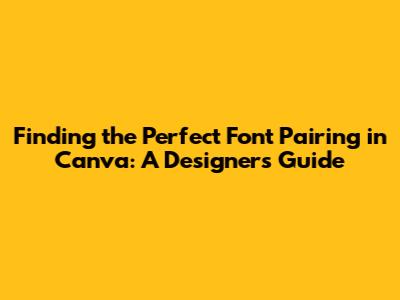
Canva Font Pairing: Best Font Combinations For Design
Hey guys! Choosing the right fonts is super important when you're designing anything, whether it's a sleek presentation, a cool social media graphic, or a professional-looking document. The fonts you pick can totally change how your message is perceived. If you're using Canva, you've got a ton of options, which can be both awesome and a little overwhelming. But don't worry, we're going to break down how to find fonts that go well together in Canva, making your designs pop! Think of fonts as the voice of your design; they convey personality, tone, and style. Pairing fonts effectively means creating a visual harmony that enhances your message, rather than distracting from it. This guide will walk you through the principles of font pairing, explore some fantastic Canva font combinations, and give you practical tips for choosing the best fonts for your projects. Whether you’re a seasoned designer or just starting out, understanding font pairing is a game-changer for creating visually appealing and impactful designs. The key is to find fonts that complement each other, creating a visual hierarchy and enhancing readability. So, let's jump into the world of typography and discover how to make your Canva designs shine!
Why Font Pairing Matters
Font pairing is more than just picking two fonts that look okay together; it's about crafting a visual experience that's both pleasing and effective. Font pairing plays a crucial role in how your audience perceives your design. When fonts work together, they create a sense of balance and harmony, making your design look polished and professional. But why is this so important? First impressions matter, guys! Your choice of fonts is one of the first things people notice, and it sets the tone for everything else. Imagine a sleek, modern presentation with a playful, childish font – it just wouldn’t work, right? The right font pairing enhances readability, ensuring your message is clear and easy to digest. A well-chosen font combination guides the reader's eye, creating a visual hierarchy that highlights important information. This is crucial for presentations, websites, and any design where you want to convey information efficiently. Think about it: have you ever struggled to read a website because the fonts were too similar or clashed horribly? Good font pairing avoids this problem. Using font pairings effectively can really elevate your designs from looking amateur to professional. It shows you've paid attention to the details and understand the nuances of visual communication. This is especially important for branding, where consistency and visual appeal are key to building trust and recognition. Imagine a logo with mismatched fonts – it would look sloppy and unprofessional. Now, consider a logo with carefully paired fonts that reflect the brand's personality – it exudes professionalism and attention to detail. In the grand scheme of design, mastering font pairing can significantly impact the success of your visual projects. It's about creating a cohesive visual experience that supports your message, enhances readability, and leaves a lasting impression. It's an art and a science, but with a little guidance, anyone can learn to do it well. So, let's explore some principles and tips to help you become a font pairing pro in Canva!
Understanding Font Personalities
Every font has its own unique personality, and understanding these personalities is the first step in successful font pairing. Think of fonts as characters in a play – each has a distinct role and contributes to the overall story. Some fonts are bold and assertive, while others are subtle and elegant. Recognizing these characteristics helps you choose fonts that complement each other, creating a cohesive visual narrative. Let's break down some common font categories and their personalities. Serif fonts, like Times New Roman or Georgia, are traditional and formal. They have small decorative strokes called serifs at the end of the letters. Serif fonts often convey a sense of authority, reliability, and sophistication. They're great for formal documents, books, and websites that aim to project a sense of trustworthiness. Imagine a law firm using a classic serif font in their branding – it conveys stability and professionalism. On the other hand, sans-serif fonts, such as Arial or Helvetica, are modern and clean. They lack the serifs, giving them a more minimalist and contemporary feel. Sans-serif fonts are often used in digital designs, logos, and headings because they're easy to read on screens. Think of tech companies often opting for sans-serif fonts to project innovation and simplicity. Script fonts, like Brush Script or Pacifico, mimic handwriting and add a touch of elegance and personality. They're often used for invitations, quotes, and designs that need a personal touch. However, it’s important to use script fonts sparingly, as they can be difficult to read in large blocks of text. Display fonts are designed to grab attention. They come in a variety of styles, from bold and geometric to quirky and playful. These fonts are best used for headlines, logos, and other prominent design elements. Think of the bold, stylized fonts used in movie posters or magazine covers – they’re designed to make a statement. The key to font pairing is to combine fonts with contrasting personalities that still complement each other. For instance, pairing a classic serif font with a clean sans-serif font creates a balance between tradition and modernity. By understanding these font personalities, you can start to make informed decisions about which fonts will work well together in your designs. It's like matchmaking – finding the right personalities that create a harmonious relationship!
Principles of Font Pairing
Now that we understand font personalities, let's dive into the core principles of font pairing. These principles will guide you in selecting fonts that not only look good together but also enhance the overall message of your design. Think of these principles as the rules of the game – understanding them will help you play (or design) like a pro. The first key principle is contrast. Contrast is your best friend in font pairing. Combining fonts that are too similar can make your design look bland and uninspired. You want to choose fonts that have distinct differences in weight, style, or structure. For instance, pair a bold, attention-grabbing font with a lighter, more subdued font. Or combine a serif font with a sans-serif font. This contrast creates visual interest and hierarchy, guiding the reader’s eye. Hierarchy is another crucial element. You want to establish a clear visual hierarchy in your design, indicating which elements are most important. This can be achieved by using different font sizes, weights, and styles. Typically, you'll use a bolder or larger font for headings and a simpler, more readable font for body text. This helps the reader quickly scan the design and understand the key information. For example, a bold sans-serif font for headlines paired with a classic serif font for body text creates a clear and readable hierarchy. Readability is paramount. No matter how beautiful a font is, if it's difficult to read, it's not the right choice. Your primary goal is to communicate your message effectively, so prioritize fonts that are clear and legible, especially for body text. Avoid using overly decorative or script fonts in large blocks of text, as they can strain the reader's eyes. Stick to fonts that are easy to read at various sizes and on different devices. Consistency is key to professional design. While contrast is important, you also want to maintain a level of consistency in your font choices. Typically, it's best to stick to two or three fonts per design. Overusing fonts can make your design look cluttered and confusing. Choose a primary font for headings and a secondary font for body text, and then use them consistently throughout your design. This creates a cohesive and polished look. By applying these principles – contrast, hierarchy, readability, and consistency – you can create font pairings that are not only visually appealing but also effective in conveying your message. It’s like composing music – you want to create a harmonious blend of different notes and rhythms. So, let's move on to some specific font combinations in Canva that put these principles into action.
Canva Font Combinations That Work Wonders
Canva offers a fantastic array of fonts, making it a playground for designers. But with so many options, it can be tricky to find the perfect pairs. Don't worry, guys! We've curated some Canva font combinations that work wonders, giving you a head start on your next design project. These combinations are tried and true, offering a balance of style, readability, and visual appeal. Let's dive in! First up, we have the classic pairing of Montserrat and Montserrat Light. Montserrat is a clean, modern sans-serif font that works well in a variety of contexts. Pairing it with Montserrat Light adds a subtle contrast, creating a balanced and professional look. Use Montserrat for headings and subheadings and Montserrat Light for body text. This combination is perfect for presentations, websites, and marketing materials. Next, consider Playfair Display and Montserrat. Playfair Display is an elegant serif font with a touch of sophistication, while Montserrat provides a clean, modern contrast. This pairing is great for designs that need a touch of formality, such as invitations, stationery, or editorial layouts. Use Playfair Display for headings and Montserrat for body text to create a refined and readable design. Another winning combination is Oswald and Lato. Oswald is a bold, condensed sans-serif font that's perfect for headlines, while Lato is a clean and friendly sans-serif font that works well for body text. This pairing is modern and approachable, making it ideal for websites, blogs, and social media graphics. Using Oswald for headings grabs attention, while Lato ensures readability in longer text passages. If you're looking for something more playful, try League Gothic and Raleway. League Gothic is a strong, condensed sans-serif font with a vintage feel, while Raleway is a clean and versatile sans-serif font. This pairing is perfect for designs that need a bit of personality, such as posters, flyers, or branding materials. Using League Gothic for headlines and Raleway for body text creates a dynamic and eye-catching design. For a more classic and refined look, consider pairing Merriweather and Open Sans. Merriweather is a readable serif font that works well for longer text passages, while Open Sans is a clean and neutral sans-serif font. This combination is perfect for websites, articles, and reports where readability is crucial. Using Merriweather for body text and Open Sans for headings provides a balanced and professional look. These are just a few examples, guys, but they demonstrate the principles of successful font pairing. By experimenting with these combinations and understanding the underlying principles, you can discover countless other pairings that work for your specific design needs. Remember, the key is to find fonts that complement each other, creating a visual hierarchy and enhancing readability. So, go ahead and explore the world of Canva fonts and create some magic!
Tips for Choosing the Right Fonts in Canva
Choosing the right fonts in Canva can feel like a big decision, but don't sweat it! Here are some practical tips for choosing the right fonts in Canva that will help you create stunning designs. These tips cover everything from understanding your project’s goals to testing your font choices in different contexts. Think of these tips as your design toolkit – they’ll help you approach font selection with confidence and clarity. First off, consider your project’s purpose and audience. What are you trying to communicate, and who are you trying to reach? The fonts you choose should align with the tone and message of your project. For example, if you're designing a formal invitation, you'll want to choose elegant and refined fonts. If you're creating a fun social media graphic, you might opt for bolder and more playful fonts. Understanding your audience also plays a crucial role. A younger audience might respond well to modern, edgy fonts, while an older audience might prefer classic, readable fonts. Always keep your audience in mind when making font selections. Next, think about the overall aesthetic of your design. Do you want your design to feel modern, vintage, classic, or something else entirely? Your font choices should support this aesthetic. If you're going for a minimalist look, stick to clean and simple sans-serif fonts. If you're aiming for a vintage feel, consider using serif fonts with a retro vibe. The fonts should complement the other design elements, such as colors, images, and layout. Try not to get too attached to a particular font until you’ve seen how it looks in the overall design. Don't be afraid to experiment. Canva offers a vast library of fonts, so take advantage of it! Try out different combinations and see what works best. You can use Canva's font pairing suggestions as a starting point, but also explore other options. Sometimes the most unexpected combinations can create the most striking designs. Test your font choices in different sizes and contexts. A font that looks great at a large size might not be as readable at a smaller size. Similarly, a font that looks good on your computer screen might not translate well to print. Always test your fonts in the context they'll be used in to ensure they're legible and effective. Consider the font’s weight and style. Font weight (e.g., bold, regular, light) and style (e.g., italic, condensed) can significantly impact the look and feel of your design. Use different font weights to create visual hierarchy and emphasize important information. For example, use a bold font for headings and a regular font for body text. Be mindful of using too many different weights and styles, as this can make your design look cluttered. By following these tips, you can navigate Canva's font library with confidence and create designs that are both visually appealing and effective in communicating your message. Remember, the key is to choose fonts that align with your project’s purpose, audience, and aesthetic. So, go ahead and get creative with your font choices!
Common Font Pairing Mistakes to Avoid
Even with a good understanding of font personalities and pairing principles, it's easy to slip up and make mistakes. So, let's talk about some common font pairing mistakes to avoid. Knowing these pitfalls can help you steer clear of design faux pas and create polished, professional-looking visuals. Avoiding these mistakes will save you time and ensure your designs make the right impression. One of the biggest mistakes is pairing fonts that are too similar. As we discussed earlier, contrast is crucial in font pairing. If you choose fonts that are too alike in style or weight, your design will lack visual interest and hierarchy. The fonts will blend together, making it difficult for the reader to distinguish between headings and body text. Always aim for a clear contrast between your fonts. Another common mistake is using too many fonts. Sticking to two or three fonts per design is generally a good rule of thumb. Overusing fonts can make your design look cluttered, confusing, and unprofessional. It’s like trying to play too many instruments in a band – the result is often cacophonous. Choose a primary font for headings, a secondary font for body text, and perhaps a third font for accents or captions. But keep it simple and consistent. Ignoring readability is a major pitfall. A beautiful font is useless if it's difficult to read. Prioritize readability, especially for body text. Avoid using overly decorative or script fonts in large blocks of text, as they can strain the reader's eyes. Stick to fonts that are clear and legible at various sizes and on different devices. Always test your font choices to ensure they’re readable in the context they’ll be used in. Another mistake is failing to consider the font's personality. As we discussed, every font has a distinct personality, and it’s important to choose fonts that align with your project’s tone and message. Pairing a formal serif font with a playful script font might create a jarring and incongruous effect. Choose fonts that complement each other in terms of style and personality. If you're designing a formal document, stick to classic and professional fonts. If you're creating a fun social media graphic, you might opt for bolder and more casual fonts. Inconsistency is another common issue. Once you've chosen your fonts, use them consistently throughout your design. Avoid switching fonts randomly, as this can make your design look disjointed and unprofessional. Use the same fonts for headings and body text across all your pages or slides. This creates a cohesive and polished look. By avoiding these common font pairing mistakes, you'll be well on your way to creating visually stunning designs that effectively communicate your message. Remember, guys, the key is to choose fonts that contrast yet complement each other, prioritize readability, and maintain consistency throughout your design. So, keep these tips in mind, and you'll become a font pairing pro in no time!
Level Up Your Designs with Perfect Font Pairings
Choosing the right fonts might seem like a small detail, but it can significantly impact the overall effectiveness of your designs. By understanding font personalities, following the principles of font pairing, and avoiding common mistakes, you can level up your designs with perfect font pairings. It's about creating a visual harmony that enhances your message, engages your audience, and leaves a lasting impression. Mastering font pairing is like learning a new language – it opens up a world of creative possibilities. When you understand how fonts work together, you can create designs that are not only visually appealing but also strategically effective. You can use fonts to convey emotions, establish hierarchy, and guide the reader's eye. You can transform a simple design into a powerful communication tool. Remember, font pairing is an art and a science. It requires both creativity and attention to detail. Don't be afraid to experiment with different combinations, but always keep in mind the principles of contrast, readability, and consistency. Take the time to explore Canva's vast library of fonts and discover the pairings that resonate with you. As you practice and experiment, you'll develop a keen eye for font pairings that work. You'll start to recognize the subtle nuances that make certain combinations sing. You'll develop a personal style and a unique design voice. And most importantly, you'll create designs that are not only beautiful but also effective in achieving their intended purpose. So, guys, embrace the power of font pairing! It's a skill that will serve you well in all your design endeavors, whether you're creating presentations, websites, social media graphics, or anything else. Invest the time to learn the principles, explore the possibilities, and develop your own style. And watch as your designs transform from ordinary to extraordinary. With the right font pairings, you can tell a story, evoke an emotion, and make a lasting connection with your audience. Go forth and create something amazing!